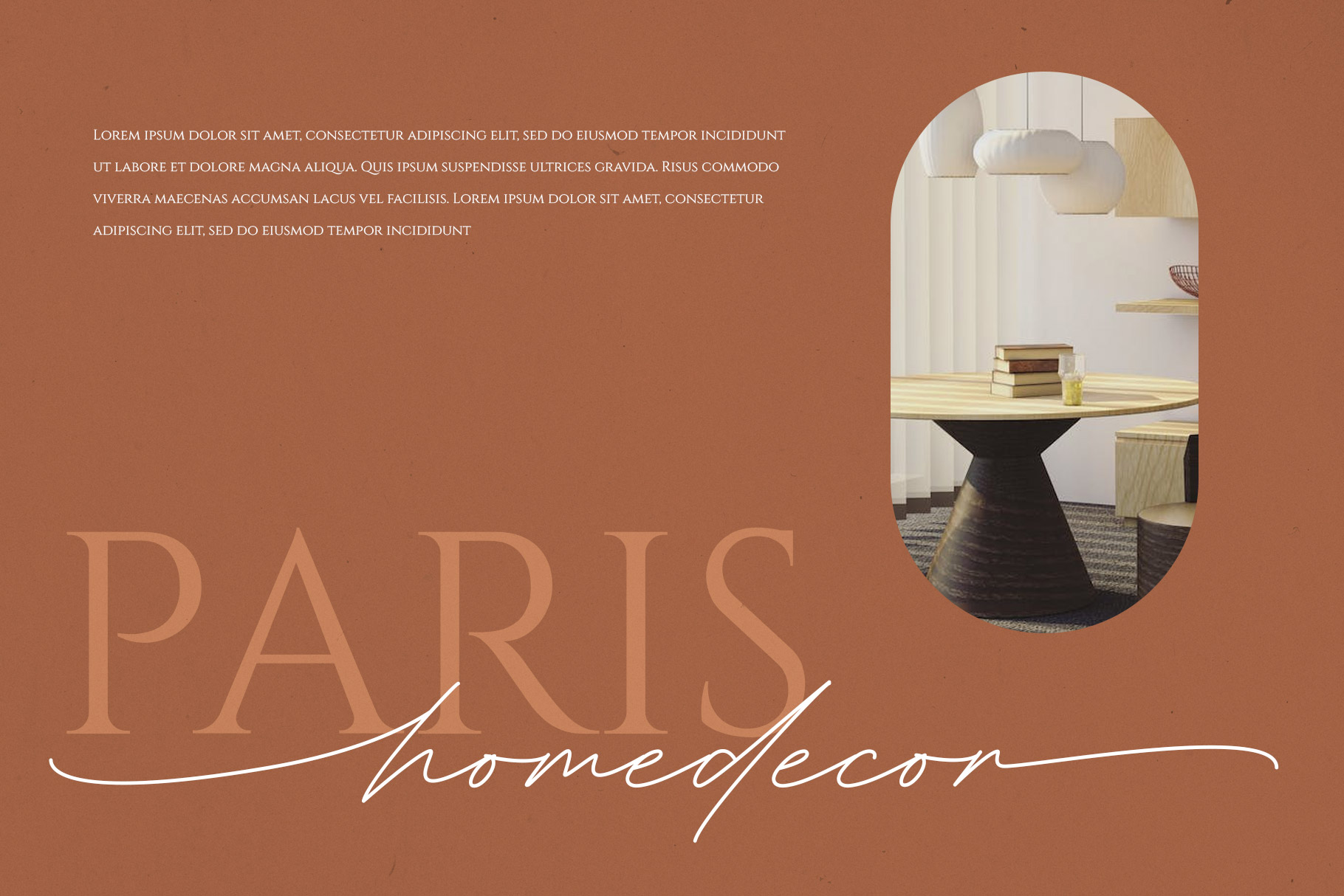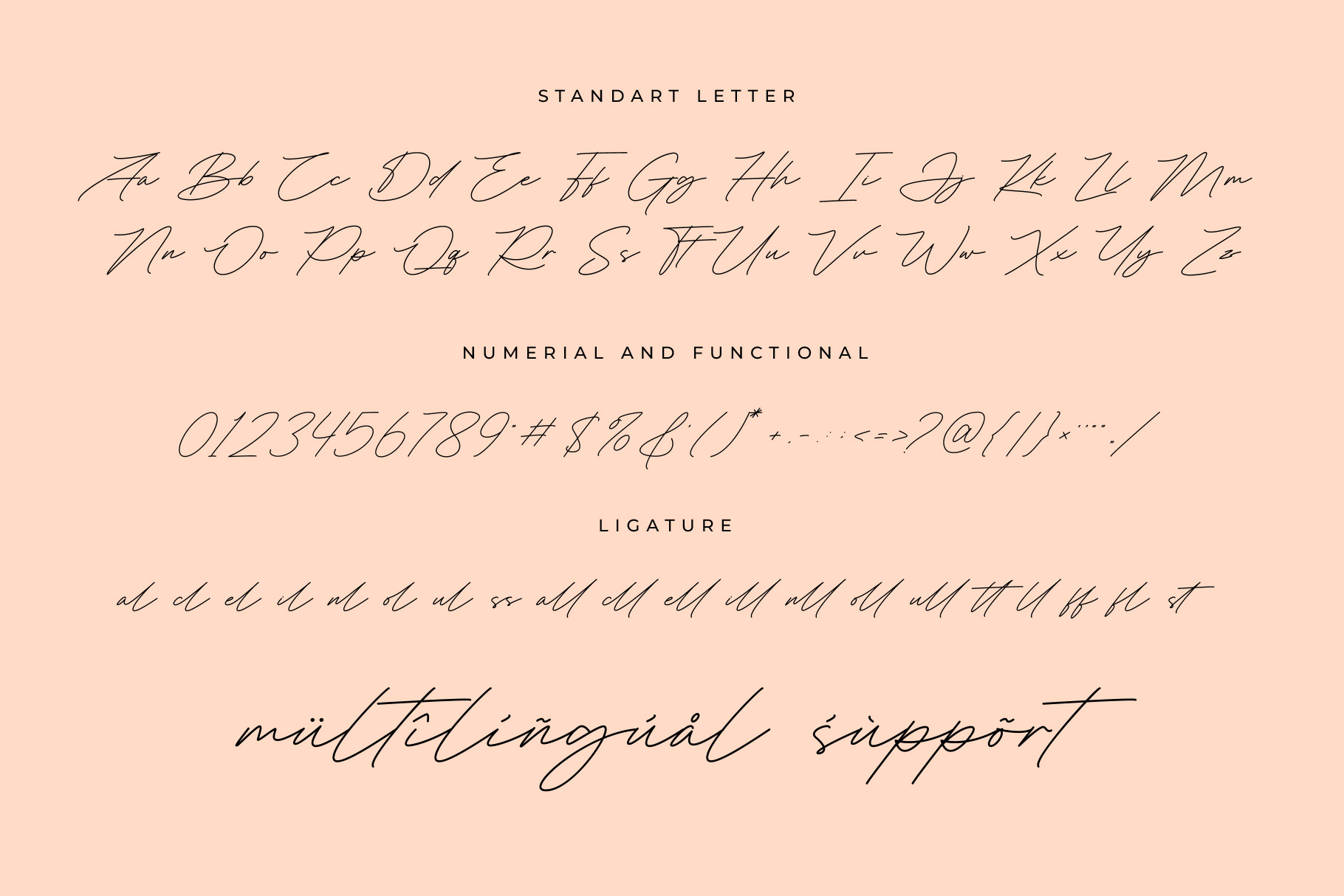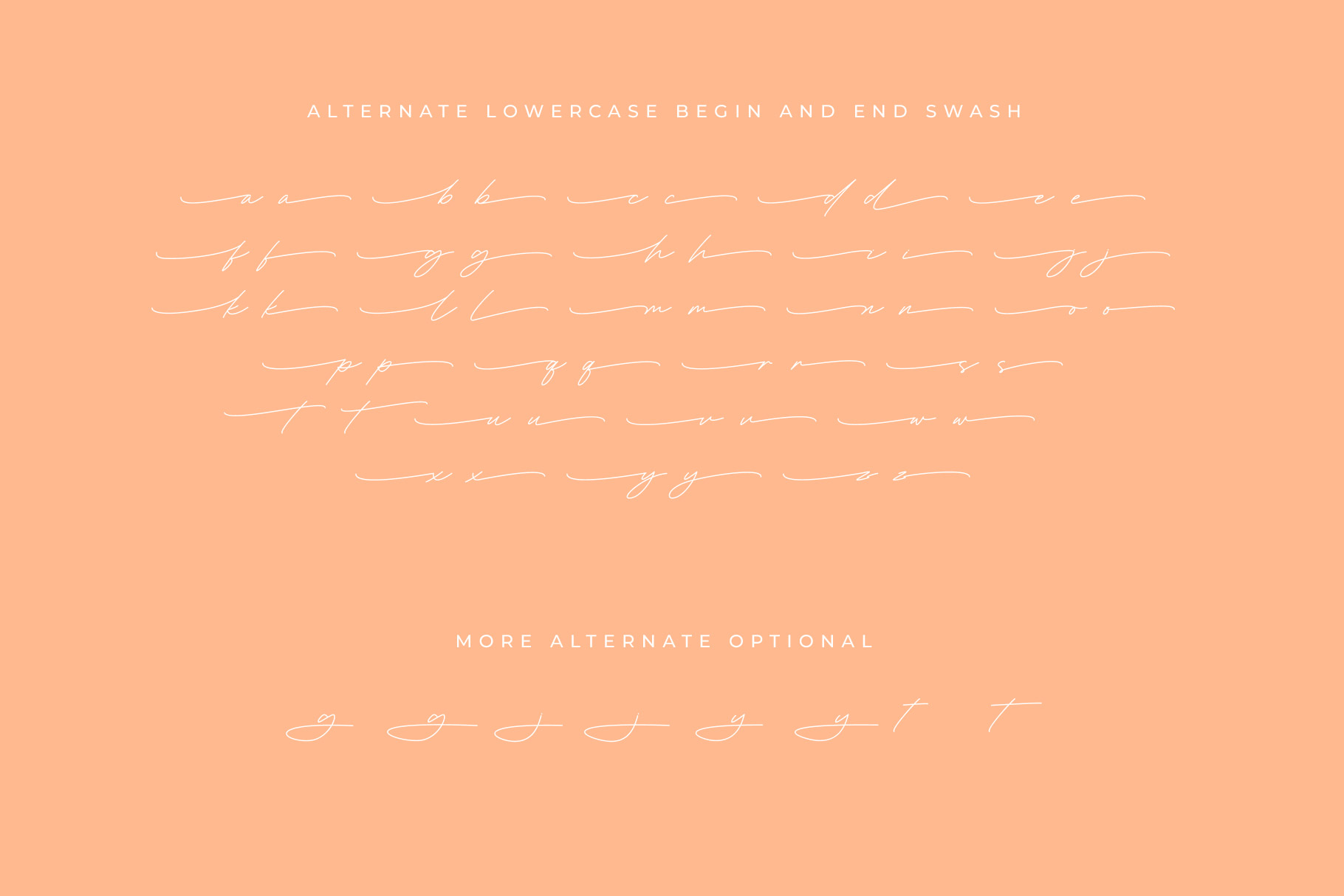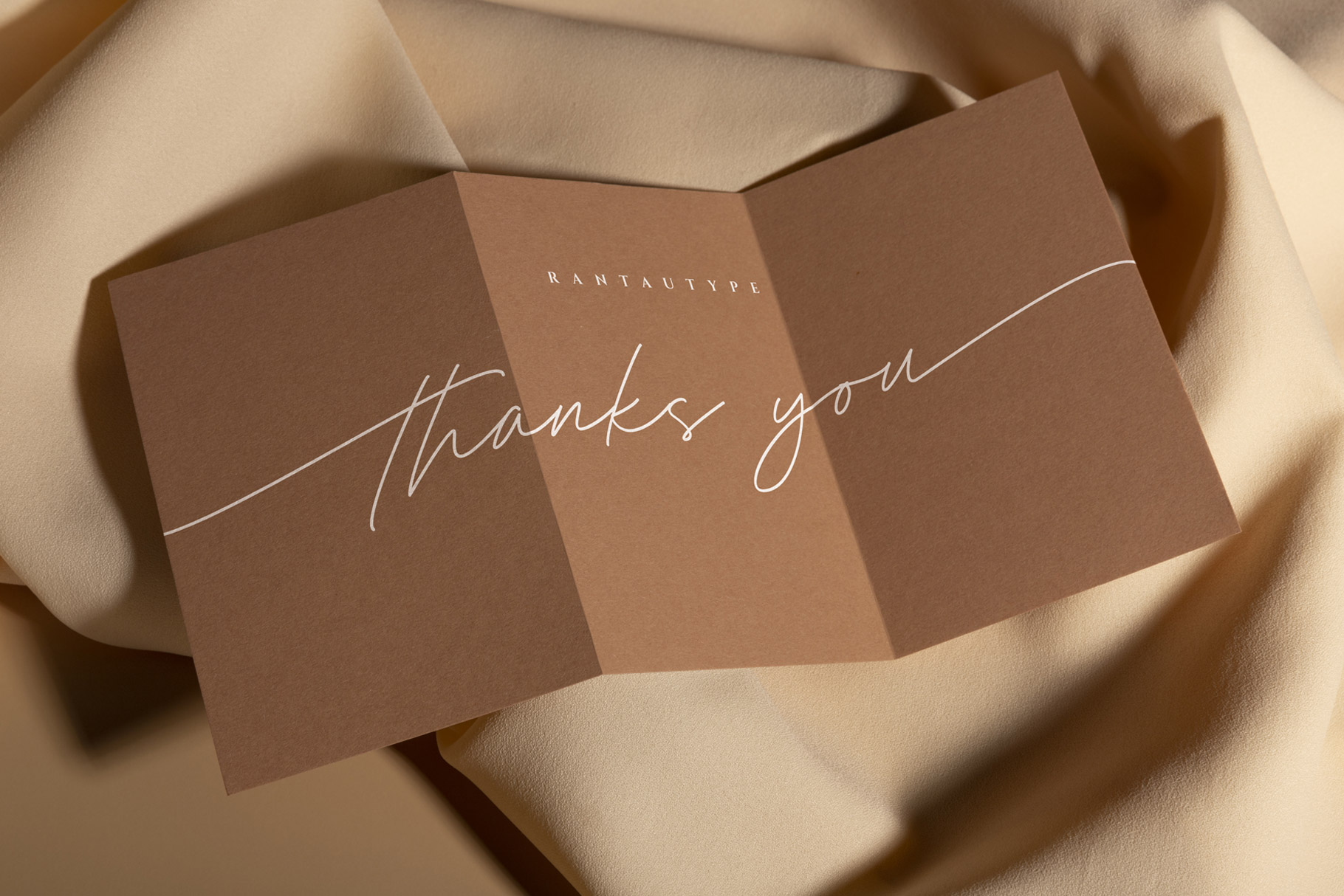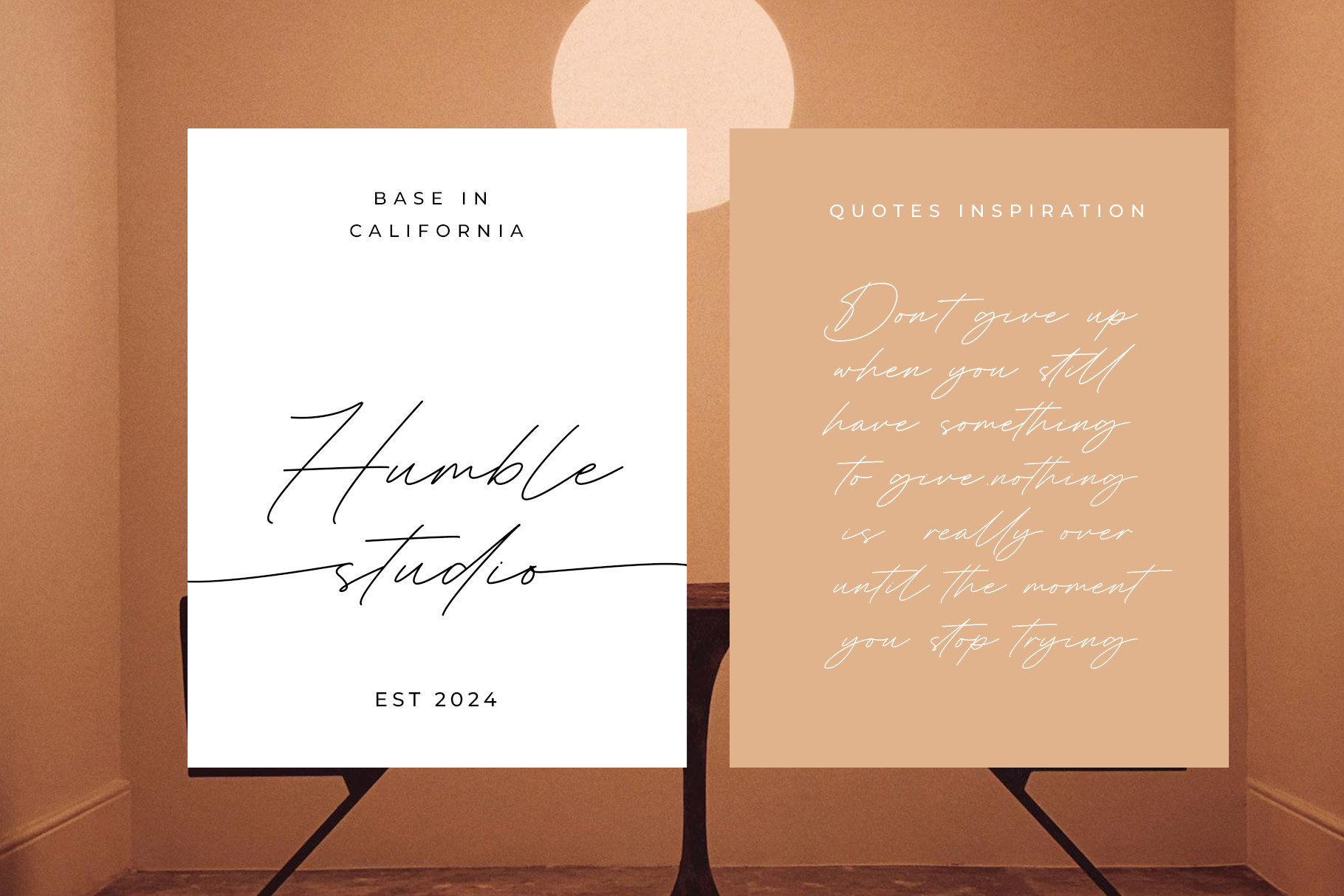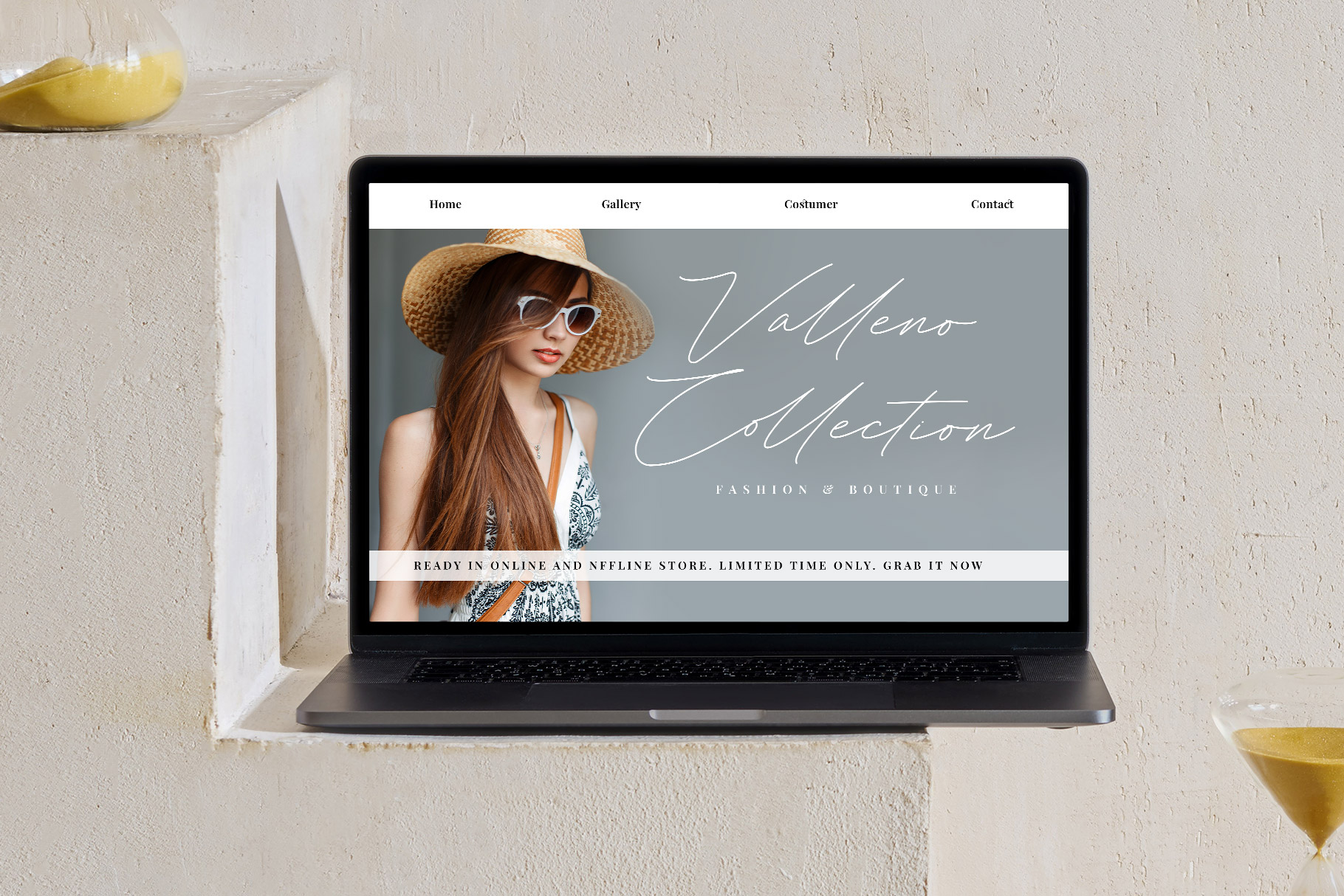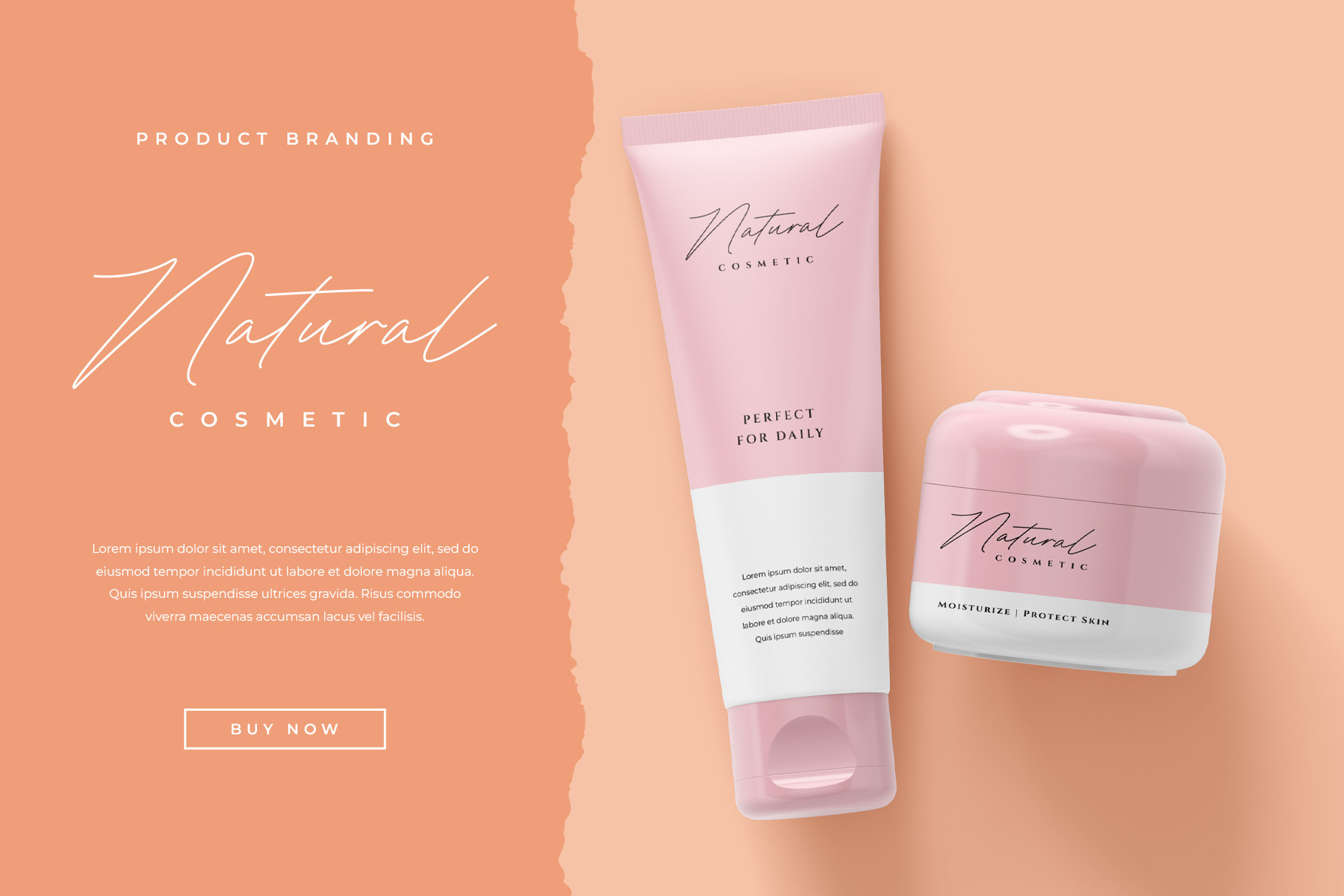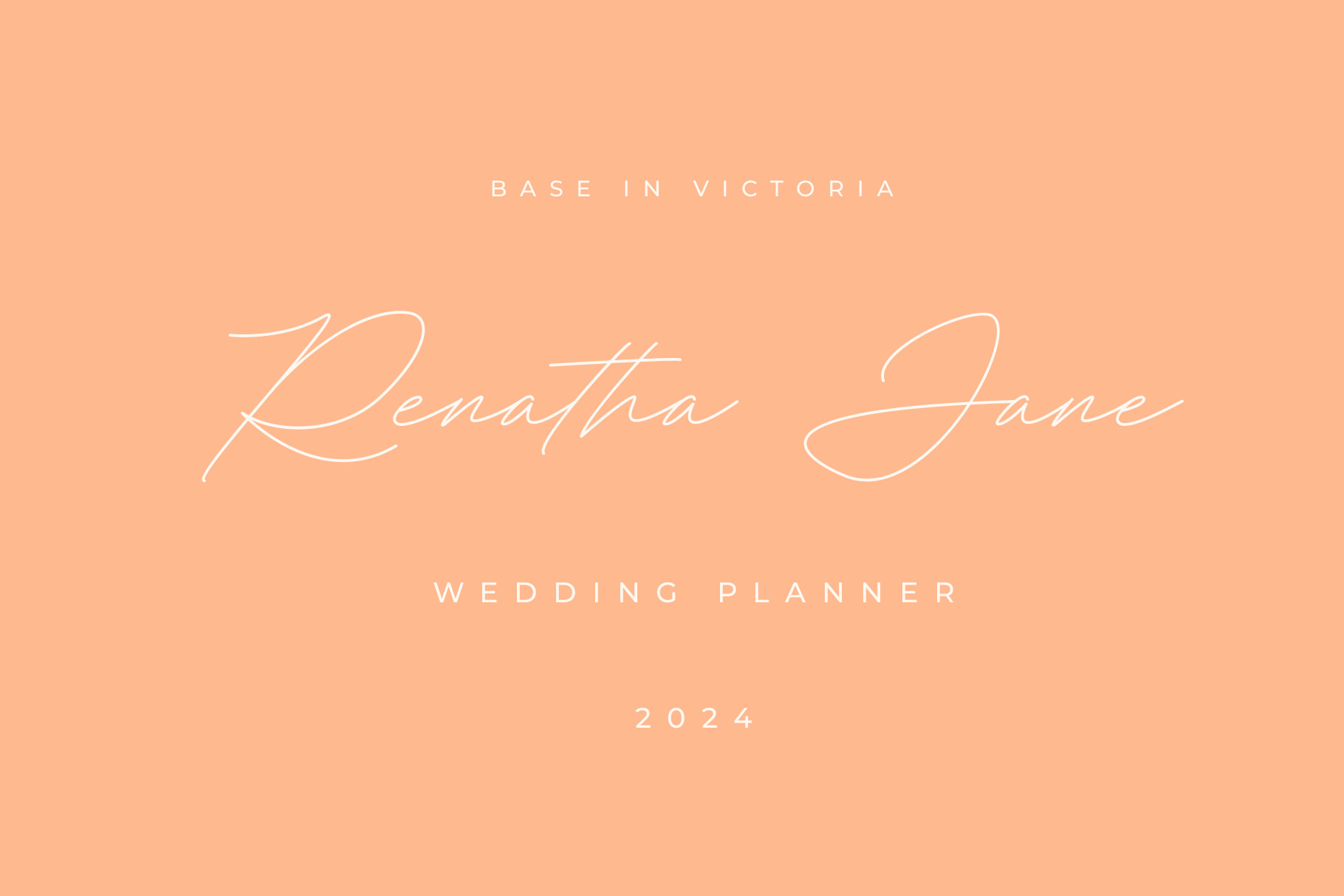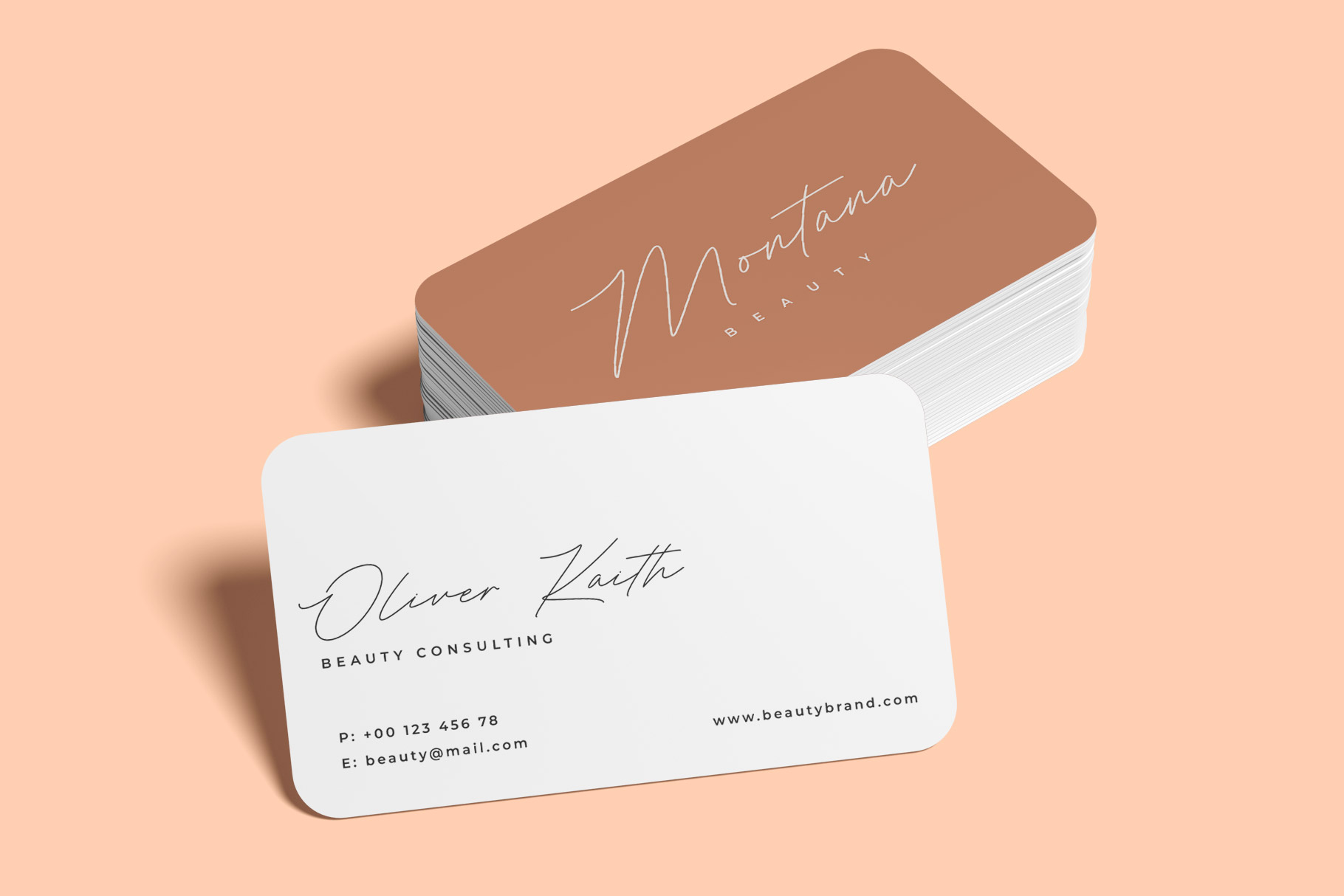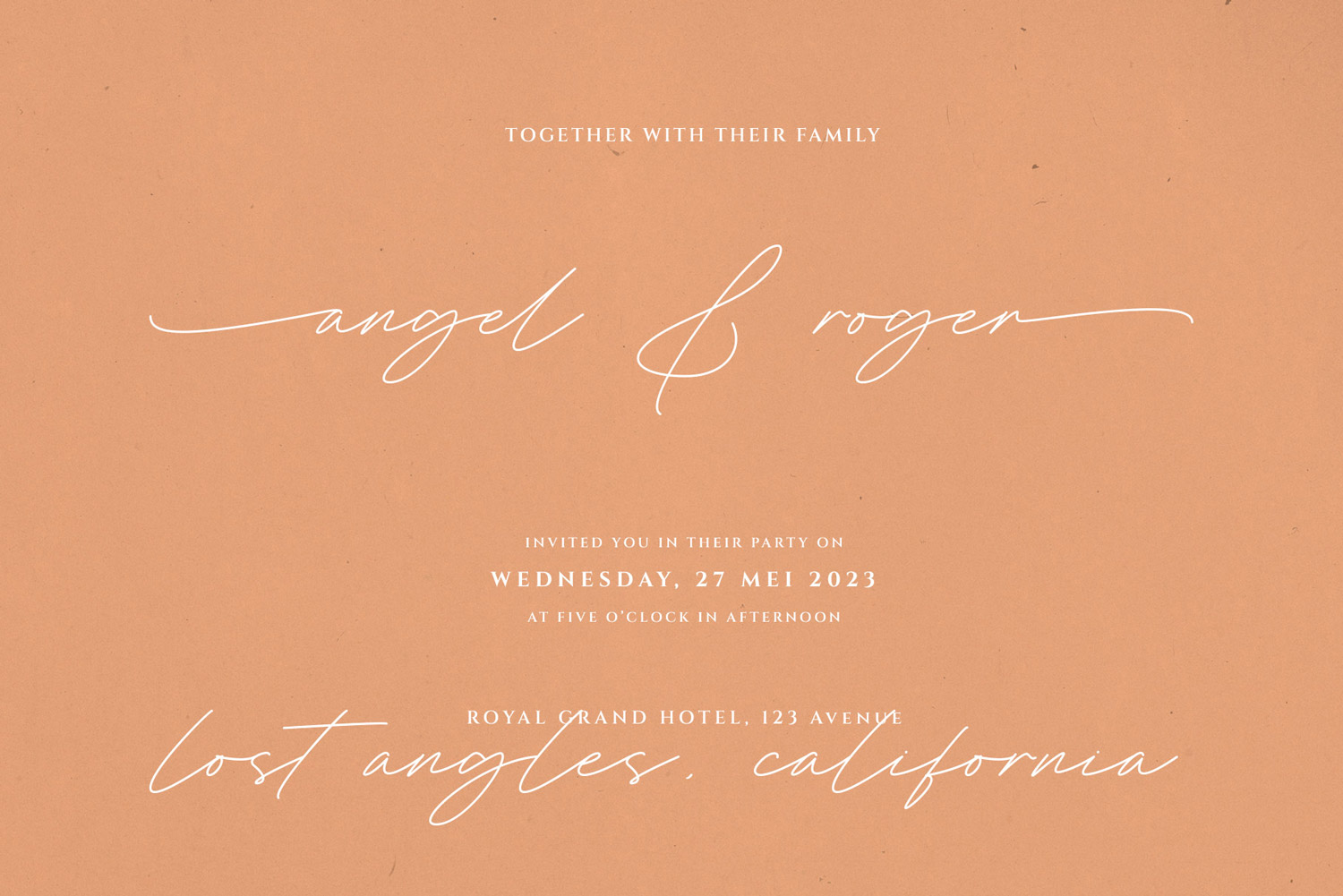
Celestia Pearl is modern monoline style which can be interpreted professional. we keep this font looks elegant, luxury, premium, modern, readable, stylish, feminine, catchy and easy to use . Celestia PearlĀ  is the great choice for watermark on photography, branding, wedding event, signature or signature logo design, quotes, album cover, magazine, business card and many other design project.
• Ligature andĀ Alternate
• Lowercase begin and end swash